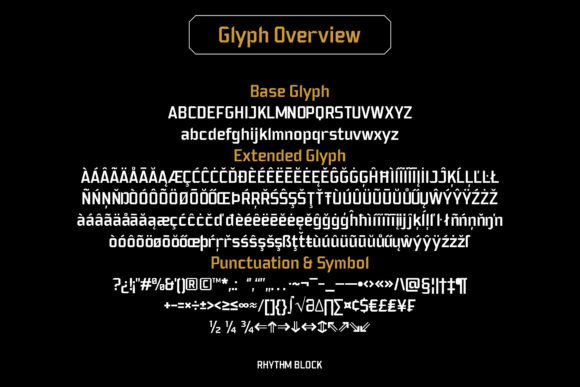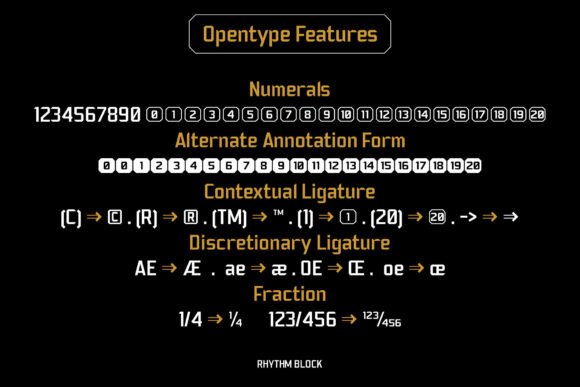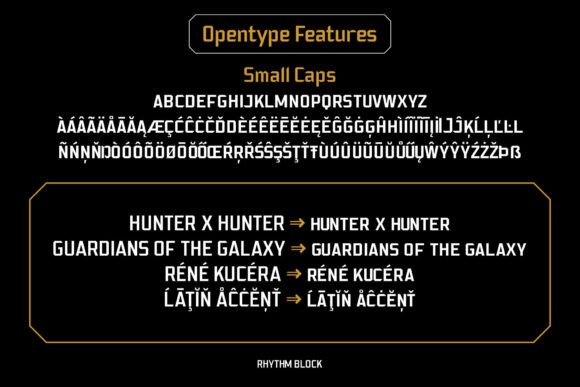
Rhythm Block Font: Retro Display for Bold Logo Design
About the Rhythm Block Font
From logos to headlines, the Rhythm Block Font is the perfect choice for making a lasting impression. RhythmBlock is a vintage-style display font with bold, blocky letters. It has an old-school, retro feel, perfect for giving a classic, strong look to posters, logos, and headlines. Its thick, square shapes make it easy to read and stand out, ideal for catching attention in designs.
RhythmBlock excels in headlines, logos, and short, impactful text for posters and branding where its bold presence commands attention. Its strong, retro aesthetic is perfect for projects evoking a vintage or classic feel, such as clothing lines, music releases, or events with a nostalgic theme. Avoid using it for body text or long paragraphs; its weight and style are not suited for extended readability.
Pairing RhythmBlock with a clean sans-serif like Open Sans for body copy provides excellent contrast and readability. For a more playful effect, a rounded geometric sans-serif such as Lato could work well. A delicate script font, used sparingly, could add a touch of elegance to branding applications.
RhythmBlock’s core personality is bold and assertive, yet undeniably retro and friendly. It’s a confident choice for brands that want to project a strong, established identity with a touch of vintage charm.